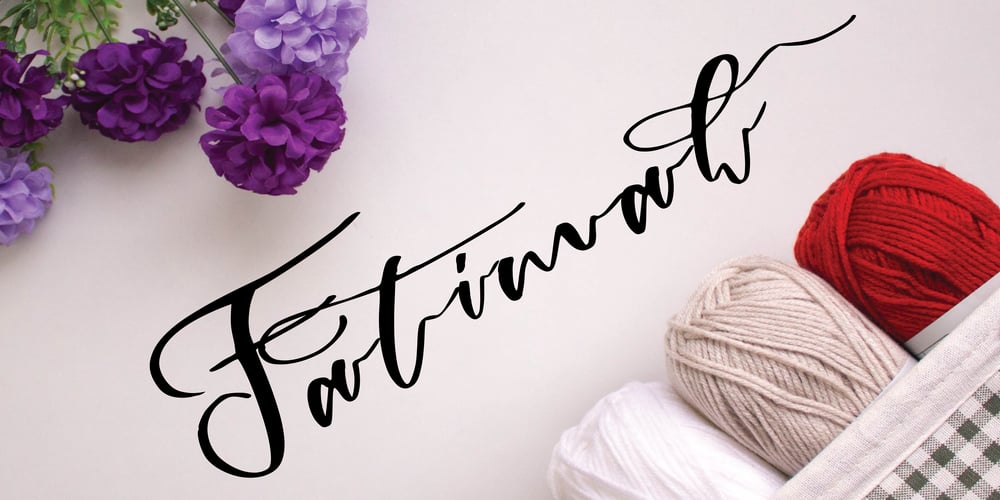
Fatimah Font Family was designed by Mariyana and published by Goodigital13. Fatimah contains 1 styles and family package options. feel and use it to create gorgeous wedding invitations, beautiful stationary art, eye-catching social media posts, and cute greeting cardsperfectly macth for desgign with valentine theme, any product like book cover, t-shirt, branding, promotion, social media post, quotes, wedding, photography and more.